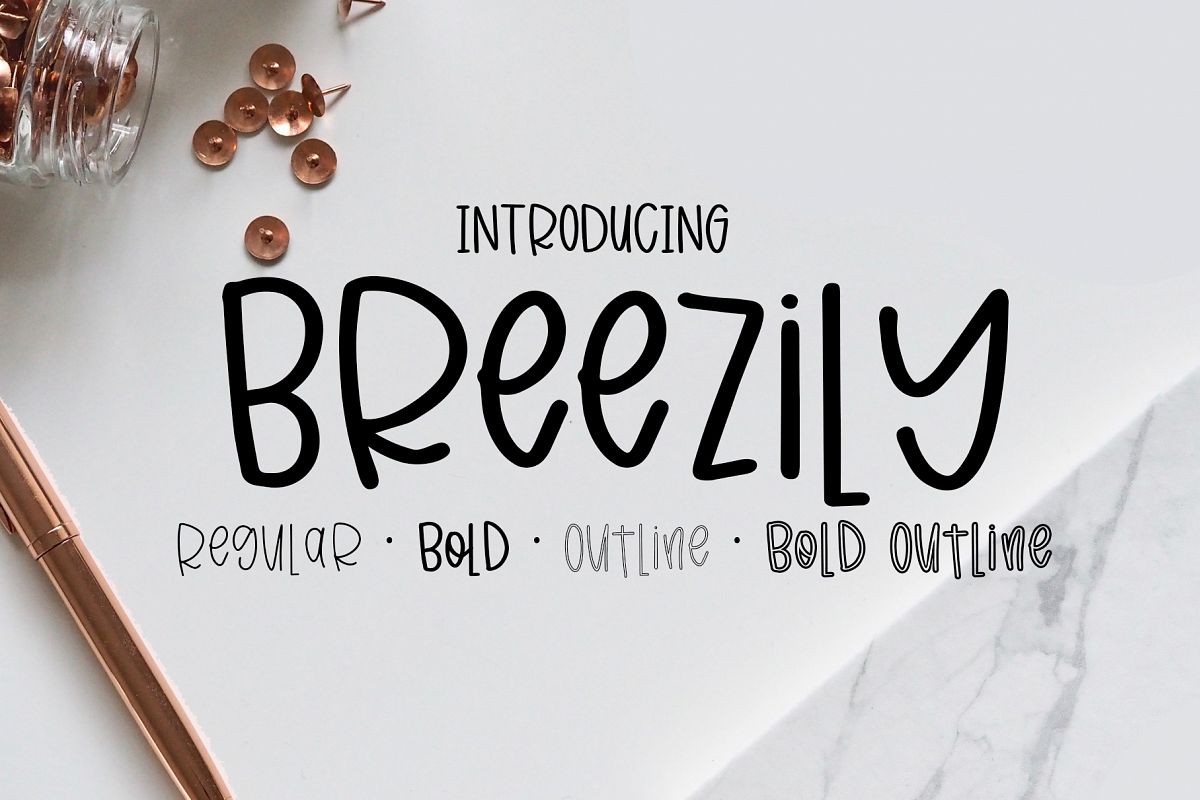
Breezily
Breezily is a fun bouncy hand-lettered font. Use it to style designs for party invitations, websites, products, greeting cards, and more! 4 fonts included! Regular, Bold, Outline, and bold outline. Add variety and character to your next project with the Breezily font!